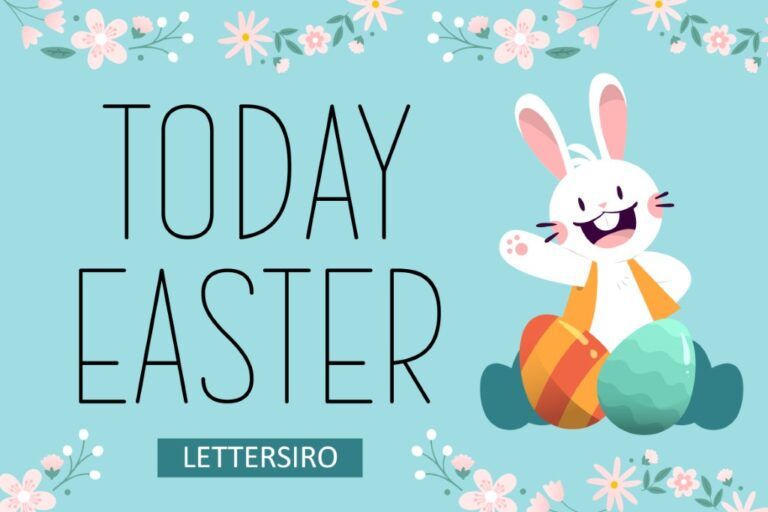
Today Easter
Today Easter is a tall narrow handwritten display font for seasonal cards, spring posters, craft labels, children-themed graphics, and simple packaging.
Light, elongated strokes give Today Easter an airy appearance with a casual handmade rhythm. The narrow proportions are useful for a short title inside a limited width, while the open construction leaves space for illustrations to carry the seasonal mood.
• Easter and spring greeting card titles
• Craft labels and seasonal packaging
• Children-themed posters and illustrated headings
Keep enough contrast for the slim strokes to show clearly. Use the narrow display lettering for a title and choose a more conventional face for longer copy.